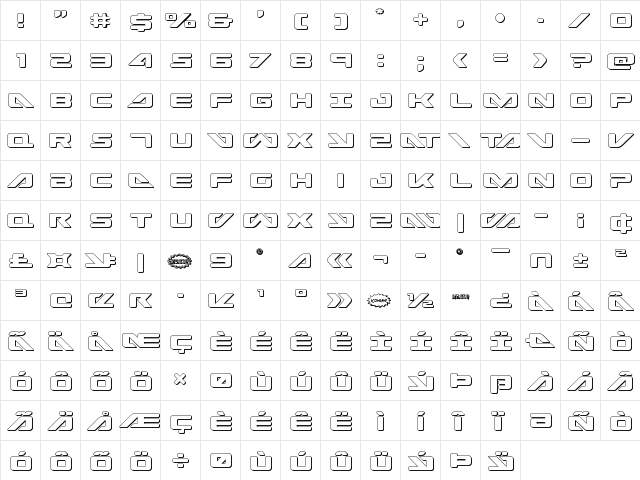
Sea-Dog Outline Outline
Design Context for Sea-Dog Outline Typeface
Sea-Dog Outline is built around its visual character rather than neutral utility — its distinctive forms are designed to make an impression at display sizes.
Font Pairing: Pair with a clean neutral sans-serif for body copy to let Sea-Dog Outline's character lead without overwhelming the composition.
Pro Tip: Treat Sea-Dog Outline as the centrepiece of your typographic hierarchy. One strong heading set in a decorative face can carry an entire layout.